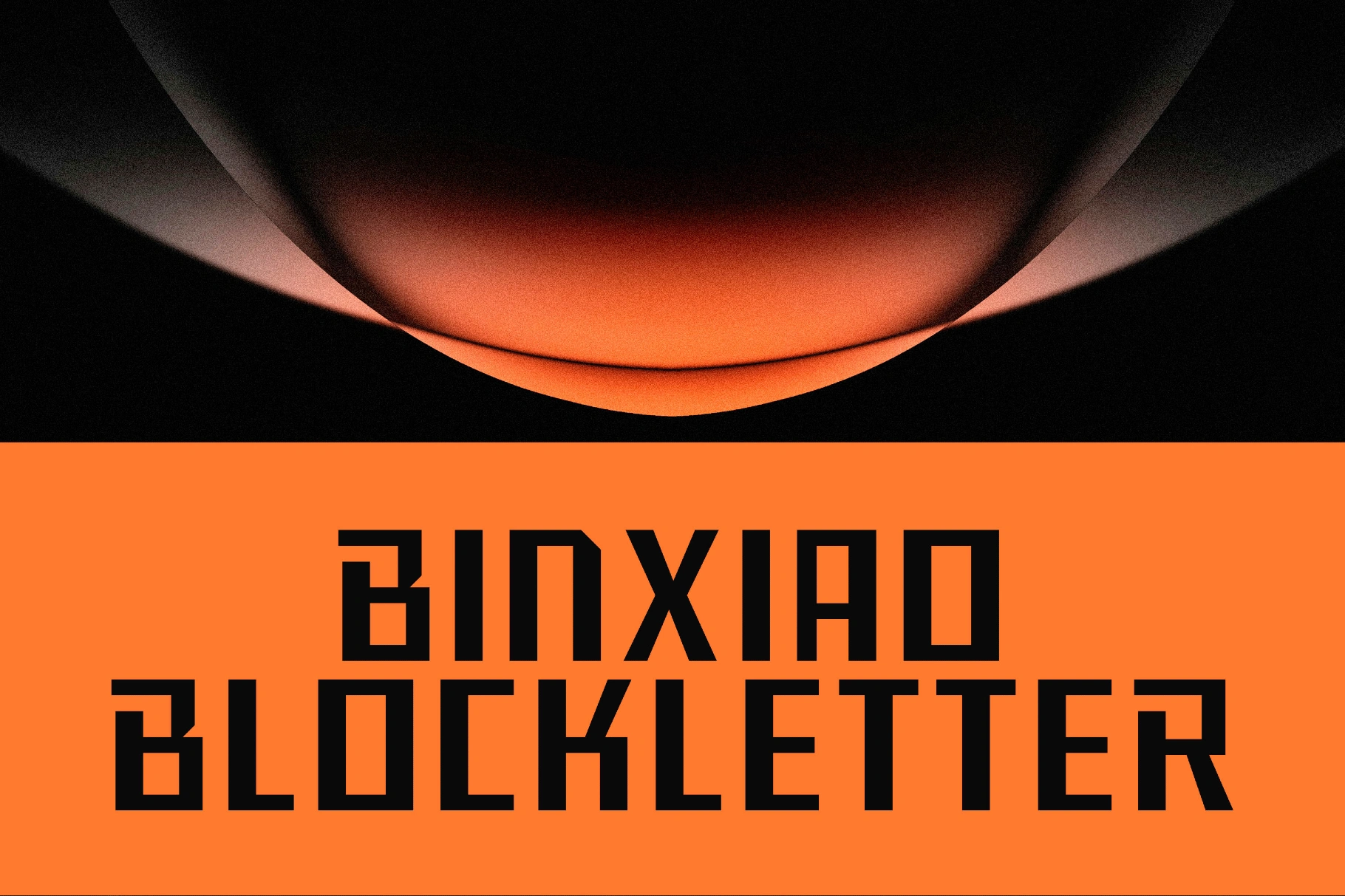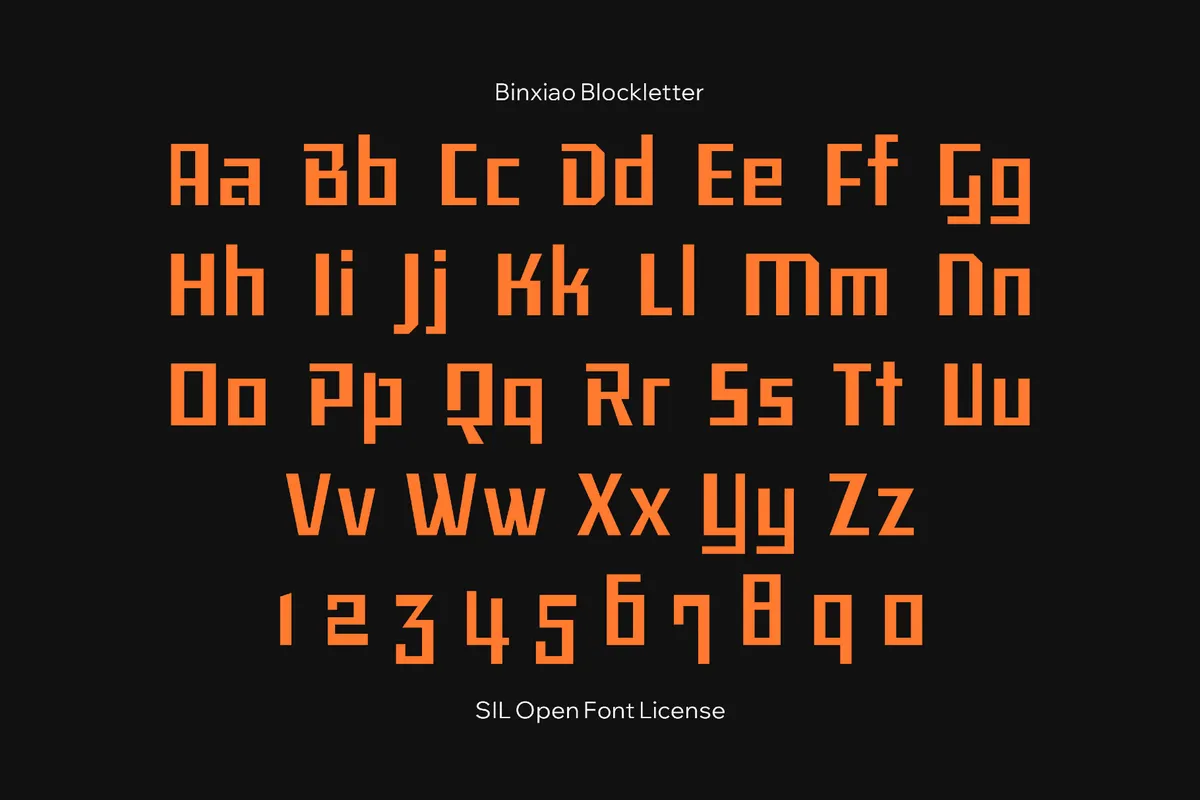
Binxiao Blockletter Font
Binxiao Blockletter stacks sturdy, squared strokes into clean, poster-ready lines. Its characters recall woodcut lettering and classroom stencil alphabets. It’s a strong pick for poster headlines, sticker graphics, infographic titles, dashboard labels, streetwear logos, packaging callouts, event flyers, wayfinding and signage systems, album art, and social titles.